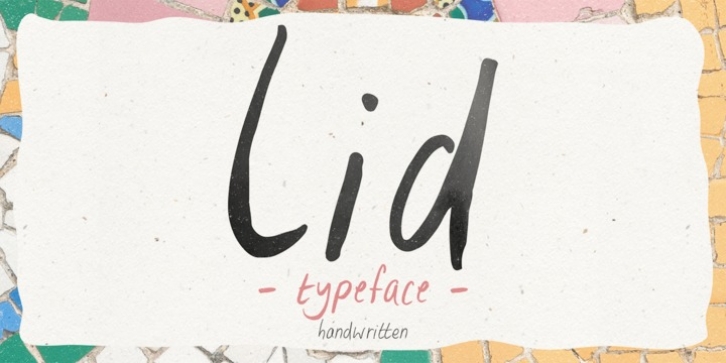
Lid was designed by Motoki Higa and published by One Fonty Day. Lid contains 3 styles and family package options.
Lid is a handwritten, versatile typeface. The non-cursive script is uncomplicated, unpretentious and easy to read. The typeface comes in three different styles; Pen, Brush and Marker. Each style has a different touch, but all three styles come together perfectly.
Most of the european languages are supported.
· Lid Pen
· Lid Brush
· Lid Marker